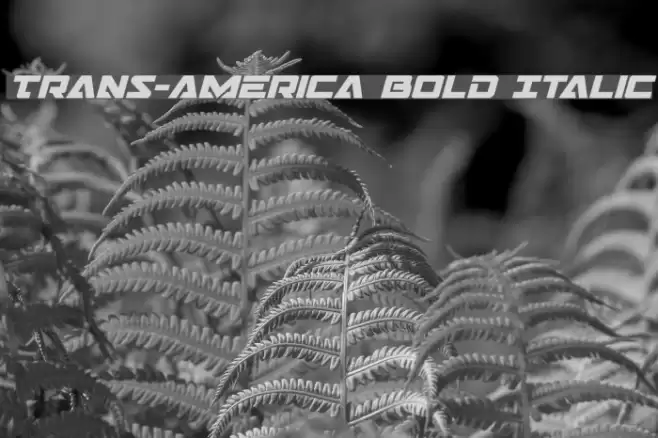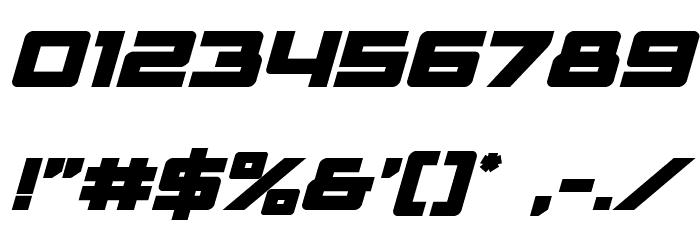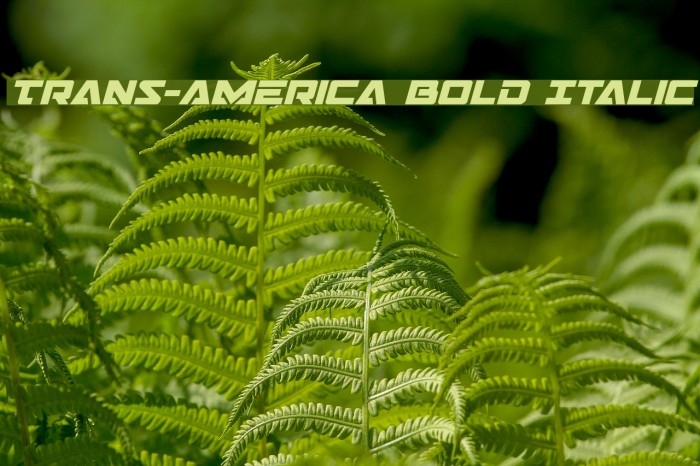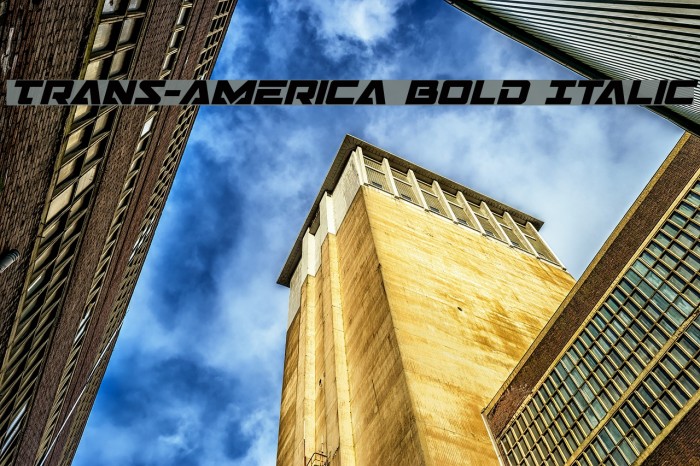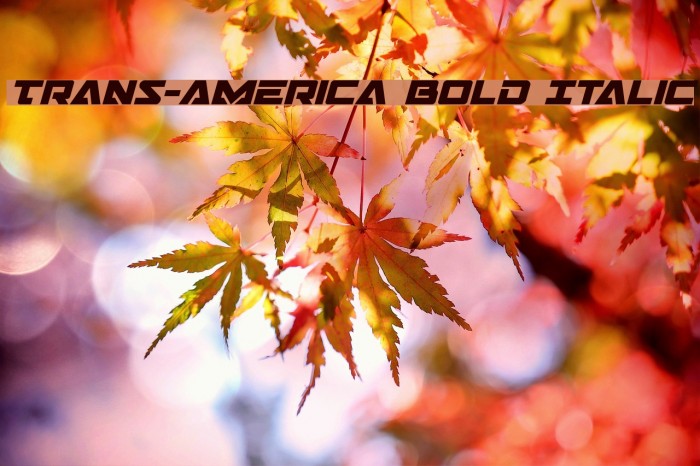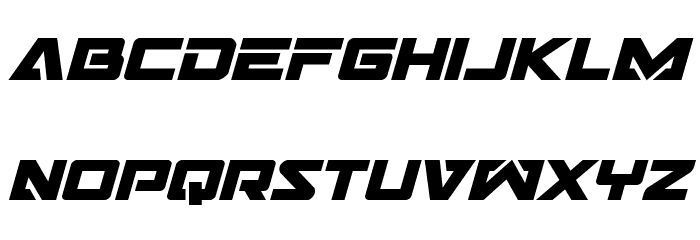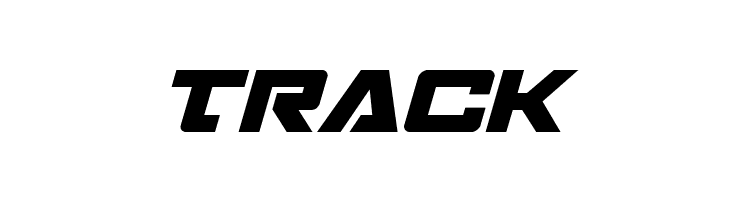
Trans-America Bold Italic Font
Trans-America Bold Italic Description
This font features a bold and italicized style with a strong geometric influence. The characters are sharply angled, giving a dynamic and forward-moving appearance. The uppercase letters are uniform in height, while the lowercase letters maintain a consistent baseline. The numbers are equally bold, ensuring visibility and impact. Special characters are designed to match the overall aesthetic, maintaining the bold and italicized theme. This font is ideal for projects that require a modern and assertive look.
A bold, italicized font with a geometric and dynamic style from Uncategorized fonts.
- Proposed Projects: Ideal for branding, sports team logos, dynamic posters, and modern advertising campaigns.